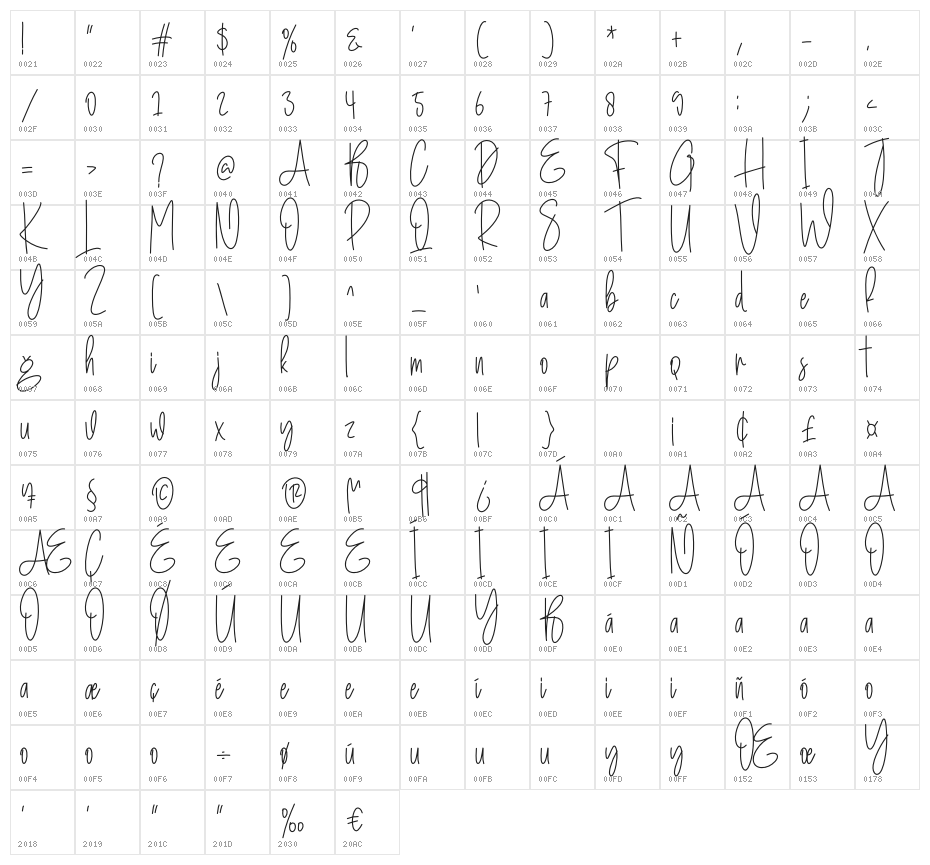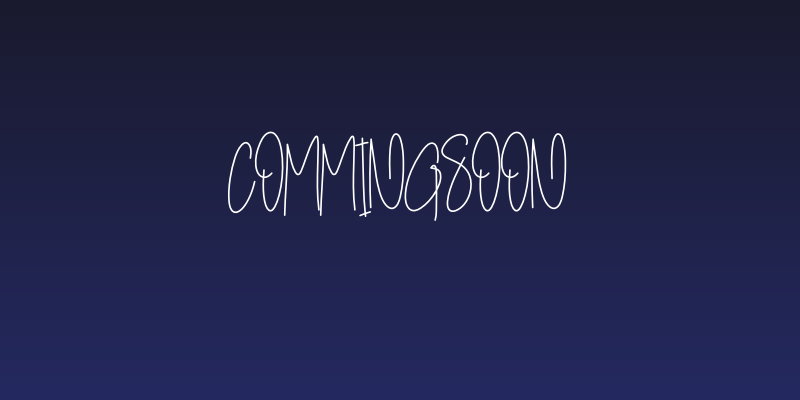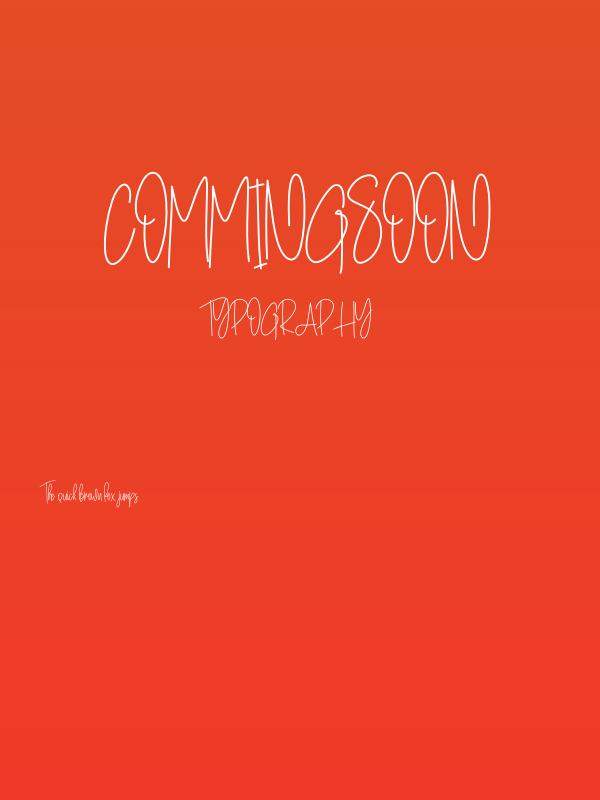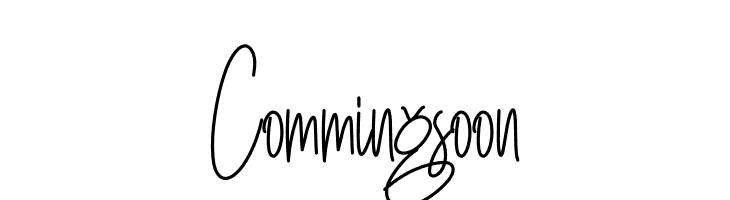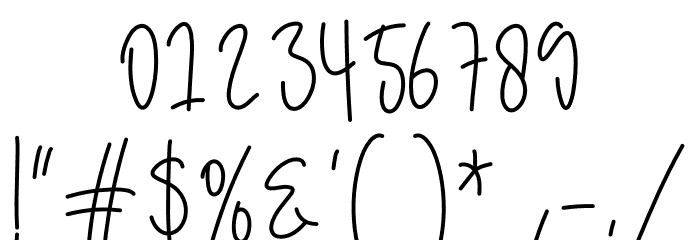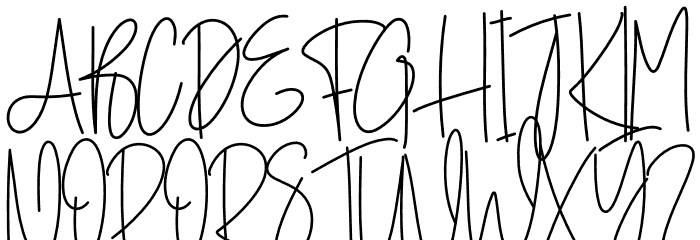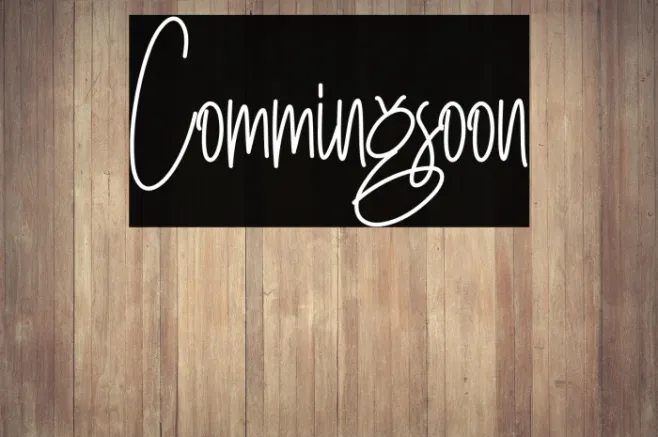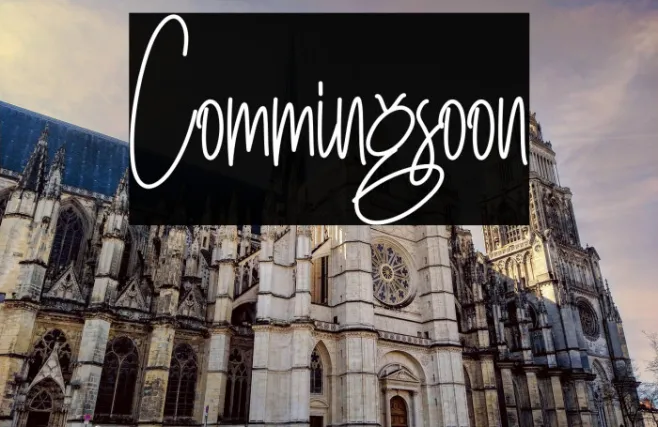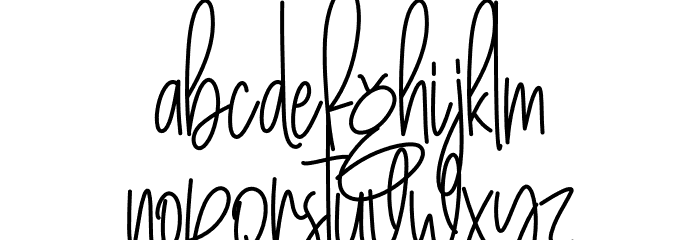
Commingsoon Font
Commingsoon Description
A playful, handwritten font with tall, narrow characters and a casual, informal style.
| Use Case | Logos, Headlines |
| Proposed Projects | Greeting cards, invitations, casual branding. |